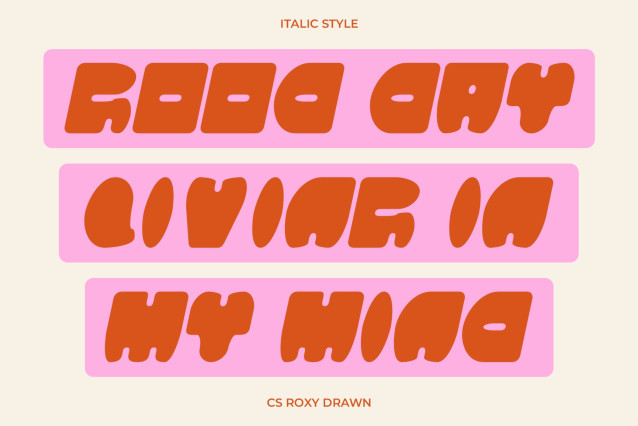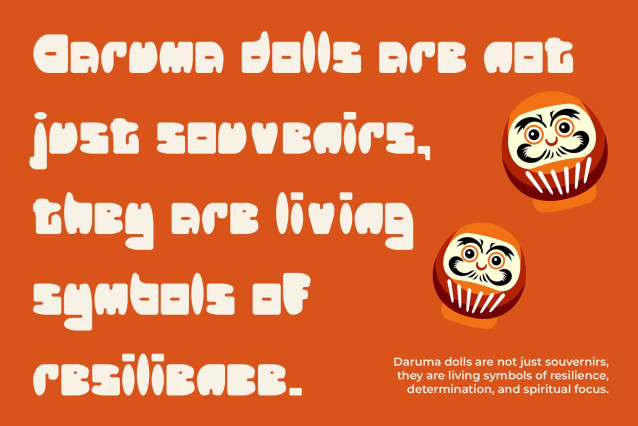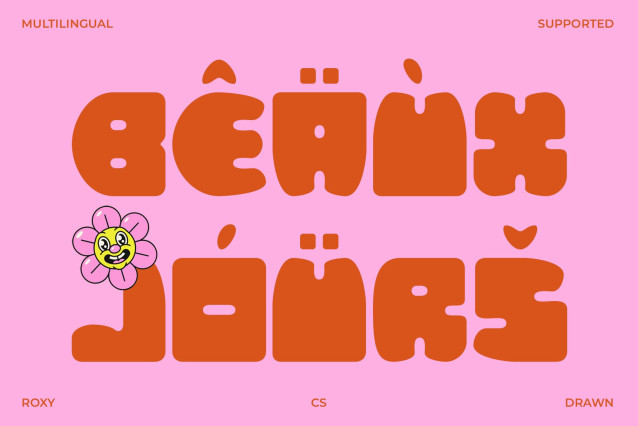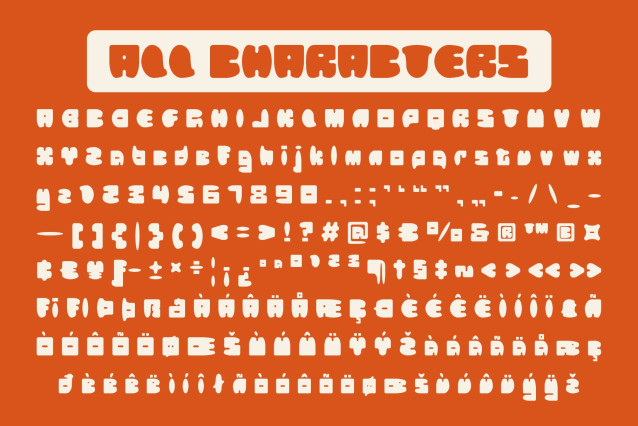
CS Roxy Drawn Font
CS Roxy Drawn Font is a bold display font that grabs attention with its confident, thick strokes and playful shapes. Its strong, impactful presence makes it perfect for designs that want to be noticed instantly, offering a fun and funky vibe that energizes any project.